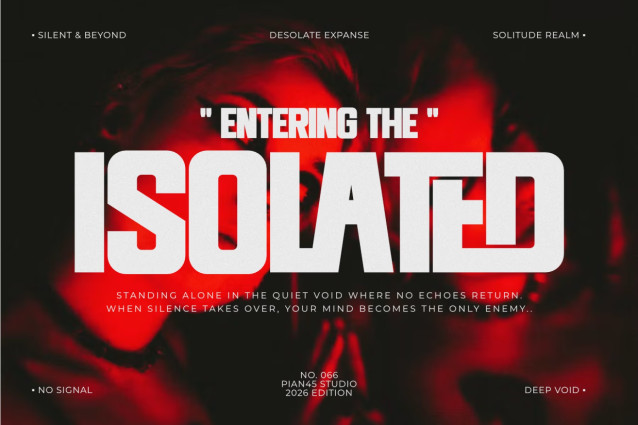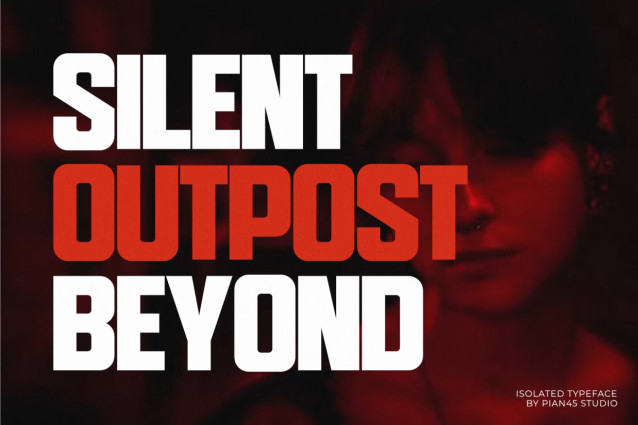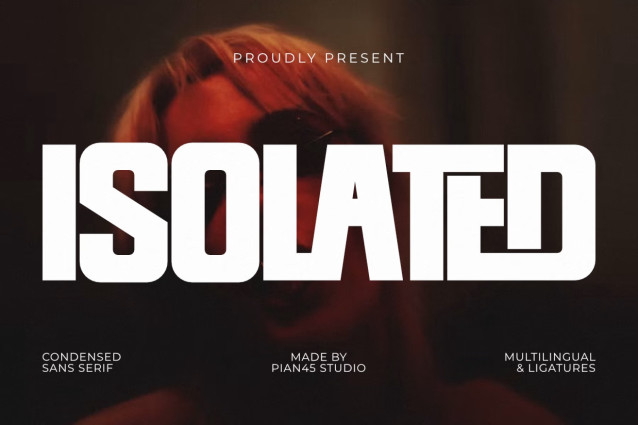
Isolated – Modern Condensed Font
Isolated is a dramatic, high-impact Modern Condensed Sans Display font engineered to capture intense suspense, dark cinematic mystery, and modern tension. Designed with heavy geometric block structures, clean angular cuts, unique discretionary ligatures, and a space-saving condensed typeface layout with full multilingual support, this bold all-caps font is built for horror movie posters, thriller titles, dark academia branding, urban streetwear apparel, and gaming graphics. Its solid visual weight and sharp architectural lines deliver maximum legibility, making it the ultimate tool for
commanding headlines, book covers, event banners, and digital marketing graphics.